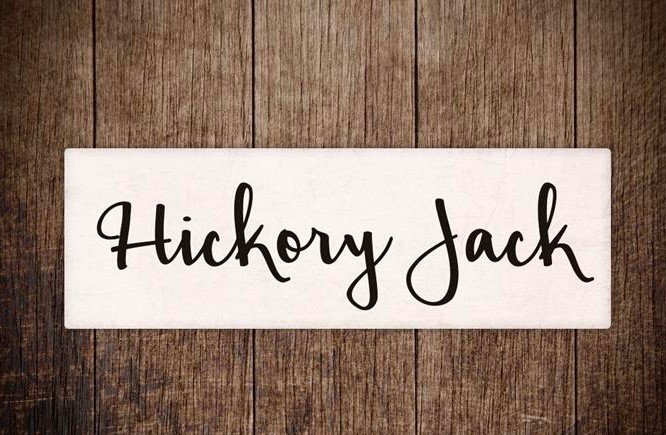
We are excited to share the Hickory Jack Font, an elegant and sophisticated hand-drawn typeface packed with numerous features that allow you to create stunning designs for free without any cost.
It contains amazing weighted scripts, legible characters, and the smartest designs that are brilliant and utilized for headlines, photograph designs, and other typographic projects.
This is one of the great and unique typefaces that come for free to utilize for all kinds of works that you want to develop for your clients and customers. It can also be used as pairing with glorydays cursive font.
It is beautiful hand drawn typeface that comes with tons of rich styles and unique glyphs that is great to make banners, covers, posters, signage, animated covers, and t-shirt designs for free
| Name | Hickory Jack Font |
| Style | Handwritten |
| Designer | Brittney Murphy |